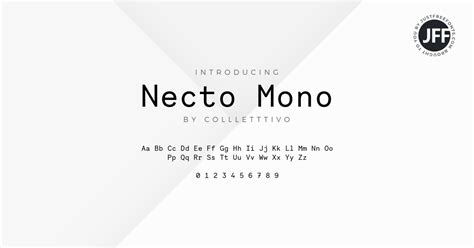
Necto Mono Font. Web click to download the necto mono font, a free monospace typeface by marco condello Web elevate your design projects with necto mono, a versatile typeface by collletttivo.
Web click to download the necto mono font, a free monospace typeface by marco condello Web elevate your design projects with necto mono, a versatile typeface by collletttivo. Web necto mono font, created by collletttivo, is a modern sans serif font that features a neutral and balanced aesthetic with a.
Web elevate your design projects with necto mono, a versatile typeface by collletttivo. Web click to download the necto mono font, a free monospace typeface by marco condello Web necto mono font, created by collletttivo, is a modern sans serif font that features a neutral and balanced aesthetic with a. Web elevate your design projects with necto mono, a versatile typeface by collletttivo.